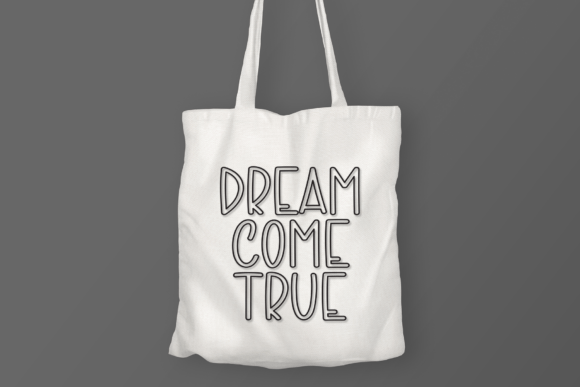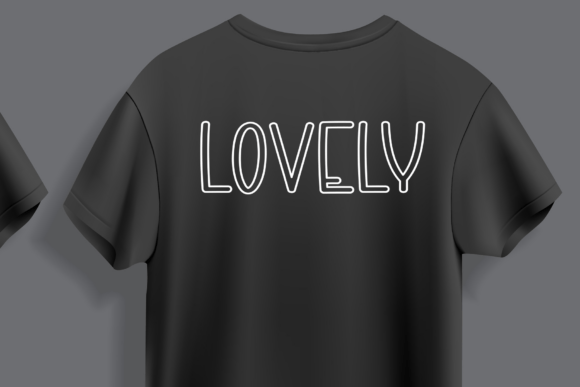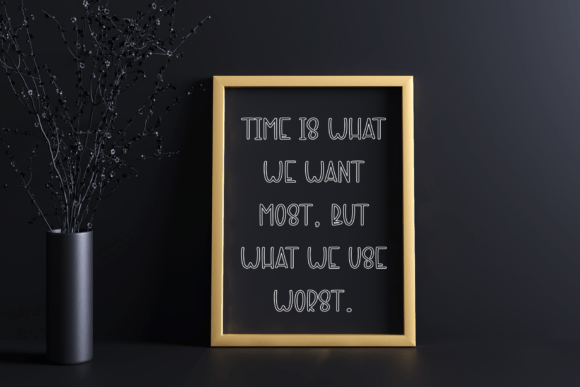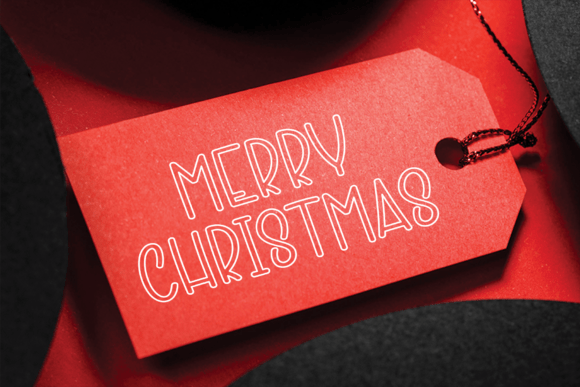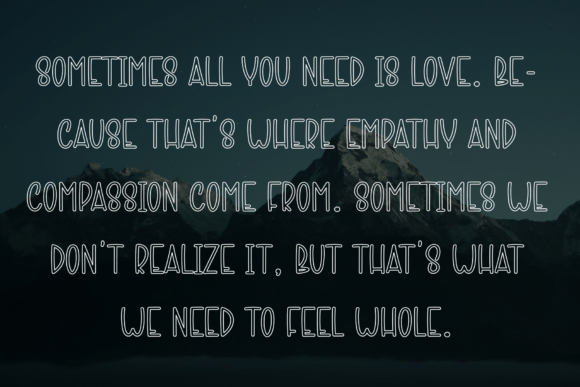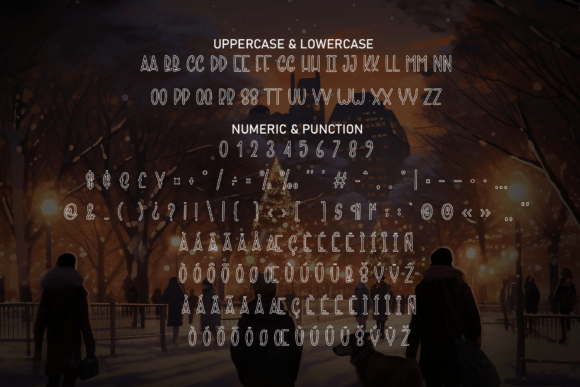
Introduction to City Winter Font
As designers, we’ve all been there – staring at a blank canvas, trying to bring a spark of creativity to a project that seems to be missing that special something. It’s in these moments that the right design resource can make all the difference. For me, it was the discovery of the City Winter Font that ignited a sense of excitement and possibility. This charming handwritten display font has a way of breathing life into even the most mundane designs, injecting a dose of fun and playfulness that’s hard to resist.
With its transparent background and high-quality design, the City Winter Font is the perfect addition to any creative project. Whether you’re working on a wedding invitation, a birthday card, or simply want to add a touch of whimsy to your everyday designs, this font is sure to deliver. And the best part? It’s available for free download, making it an invaluable resource for designers of all levels.
- Perfect for winter-themed projects, with a unique aesthetic that evokes a city atmosphere
Honest Review: City Winter Font
As a designer, I’m always on the lookout for high-quality design resources that can help bring my creative projects to life. The City Winter Font is one such resource that caught my attention, and I’m excited to share my honest review with you.
- ✨ The font’s sleek, modern design makes it perfect for any winter-themed project, from holiday cards to website headers.
- ✨ The transparent background feature allows for seamless integration with any design element, giving you complete control over your creative project.
- ⚠️ The font may not be suitable for projects requiring a more traditional, serif font style.
- ⚠️ Some users may find the font’s modern design too minimalist for certain applications.
Overall, I’m impressed with the City Winter Font’s versatility and high quality. While it may not be perfect for every project, it’s an excellent choice for designers looking to add a touch of winter wonder to their creative work.
How to Use City Winter Font
Designing with City Winter Font
The City Winter Font is a high-quality design resource perfect for creating a unique and eye-catching visual identity for your next creative project. With its clean and modern aesthetic, this font is ideal for use in various design applications.
To maximize the impact of the City Winter Font, try experimenting with different font sizes, colors, and combinations. You can also pair it with other design elements, such as images or graphics, to create a unique and visually appealing design.
The City Winter Font is perfect for use in a variety of creative projects, including:
- Winter-themed designs, such as holiday cards and posters.
- Urban-themed designs, such as cityscape illustrations and graphics.
- Modern and minimalist designs, such as logos and branding materials.